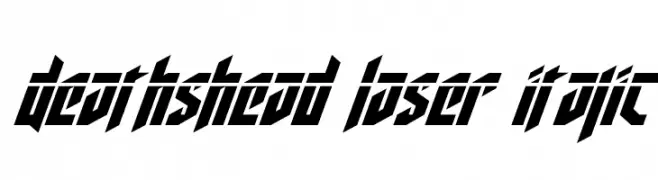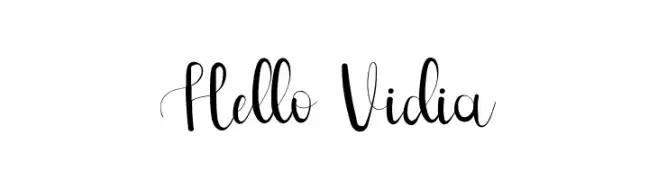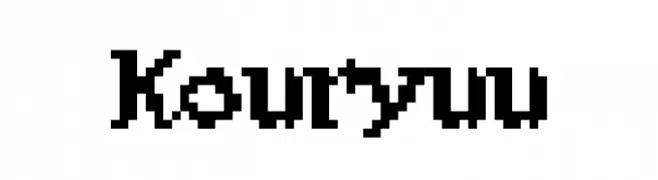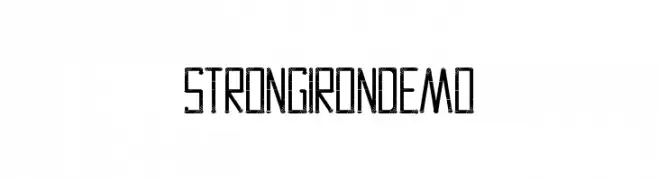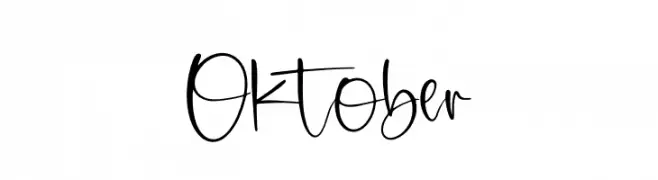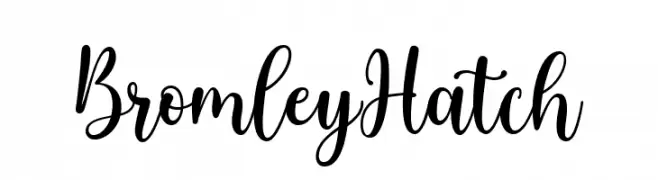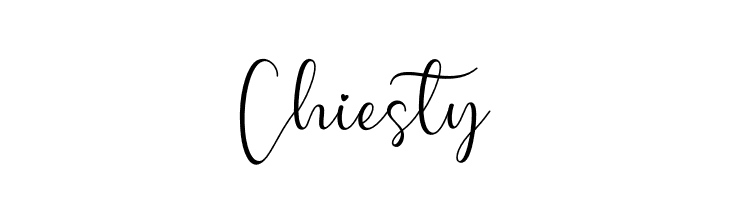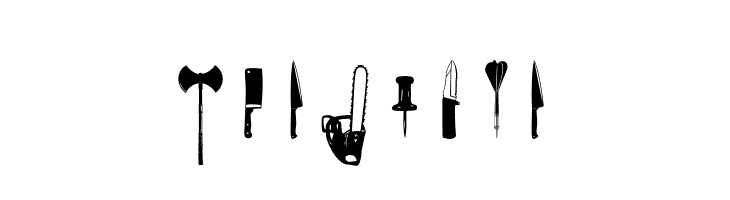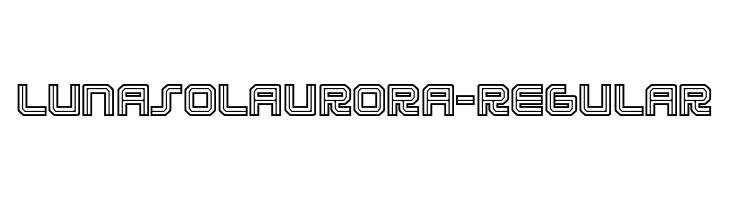
A bold, angular font with a futuristic and aggressive style.
A playful, artistic script font with a handwritten feel.
A dynamic and flowing script font with elegant, interconnected strokes.
A pixelated, retro-style font with a blocky, digital appearance.
A bold, industrial font with a rugged, distressed texture.
A graffiti-inspired font with sharp, angular lines and a bold, urban aesthetic.
A bold, rounded font with a strong and friendly appearance.
A lively, expressive handwritten font with smooth, flowing strokes and playful loops.
A bold, modern font with strong vertical lines and slightly condensed letterforms.
A lively and elegant script font with flowing, cursive letterforms.